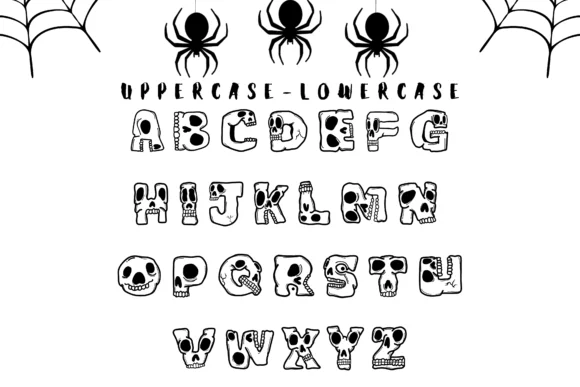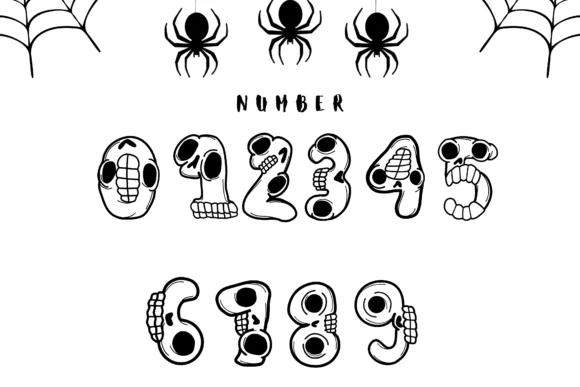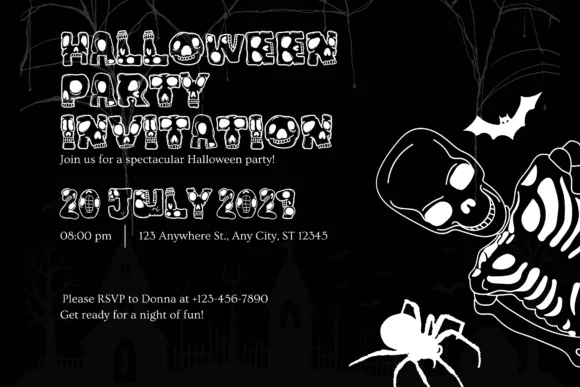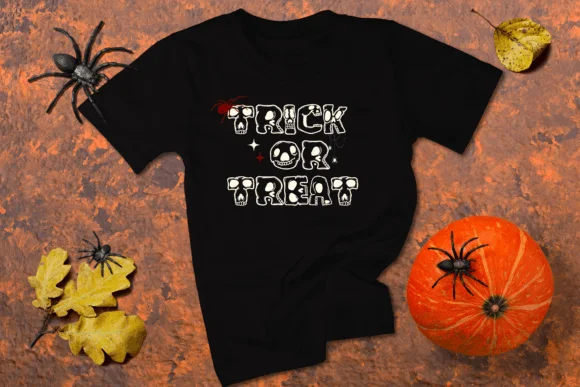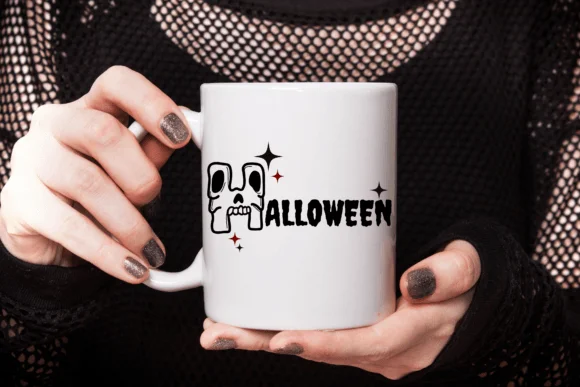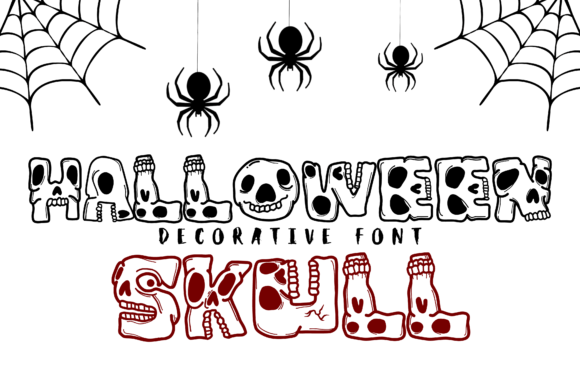
Halloween Skull Font
This macabre font is perfect for skull-themed Halloween decorations, Day of the Dead celebrations, pirate Halloween parties, gothic skull displays, skeleton costume events, skull Halloween marketing, bone-themed horror attractions, macabre Halloween branding, skull collector displays, and darkly skeletal Halloween messaging materials.
Halloween Skull Font is exciting because it captures the primal fascination and memento mori symbolism of skulls through its dramatically crafted letterforms that seem to be carved from ancient bone and weathered by centuries of supernatural encounters. The font features hollow, skeletal characters with skull proportions and bone-inspired details that evoke the spine-chilling reminder of mortality that skulls represent, transforming death's symbol into an artistic celebration of life's precious fragility, incorporating jaw-like flourishes and cranial elements that create typography as hauntingly beautiful and philosophically profound as a perfectly preserved skull glowing in candlelight. Each letter showcases the dual nature of fascination and fear that makes skulls such powerful symbols in Halloween imagery, with hollow curves and bone accents that transform ordinary text into expressions of mortal contemplation that capture the way skull imagery reminds us that Halloween's deepest magic lies in its honest acknowledgment of life's temporary nature and death's eternal mystery.
The Halloween Skull Font family includes skeletal style variations: Regular, Bold, Light, Weathered, and Ancient versions. The collection features special skull elements including bone accents, cranial flourishes, jaw details, and skeletal ornaments. Additional components include skull borders, bone frames, macabre decorations, and darkly philosophical ornamental designs that enhance the font's Halloween skull appeal and create cohesive mortality-themed Halloween designs.
Gothic artists and macabre celebration enthusiasts will find Halloween Skull Font to be an exceptional resource for creating authentically contemplative Halloween communications that honor the philosophical depth and artistic beauty that skull imagery brings to Halloween's more serious and contemplative themes. This dramatically crafted font transforms ordinary Halloween messaging into skeletal expressions that resonate with audiences who appreciate the profound symbolism and artistic heritage that make skull themes such compelling elements of Halloween's deeper philosophical and artistic traditions.
The typeface includes comprehensive character support with skeletal styling that maintains excellent readability while conveying the macabre beauty and philosophical depth of skull-centered Halloween celebrations. The font's dramatically hollow design ensures hauntingly compelling results across both artistic skull applications and philosophical Halloween productions.
Perfect for gothic Halloween events, macabre celebrations, skull collections, and darkly philosophical seasonal marketing, this font delivers dramatically compelling visual impact that communicates mortal contemplation, artistic beauty, and the profound truth that skull imagery transforms Halloween into a celebration of life's preciousness through honest acknowledgment of death's eternal presence.